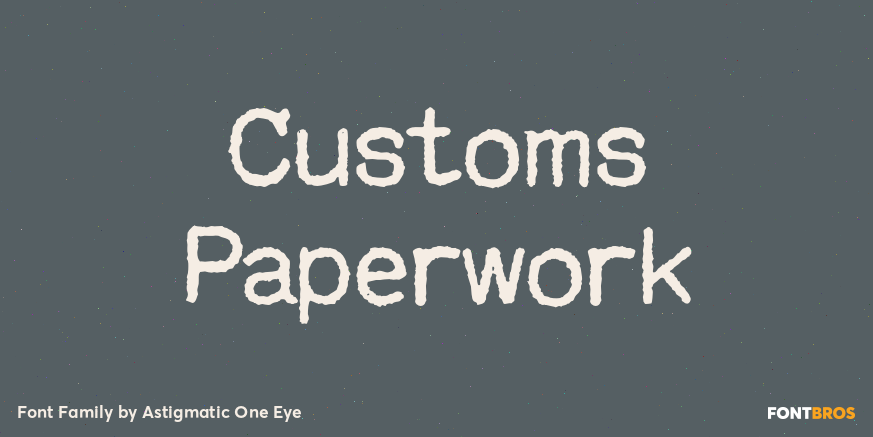
HomeFont BrosDistressedCustoms Paperwork DistressedSans Serif Customs Paperwork FacebookXPinterestWhatsApp 1 of 1 About Customs Paperwork A typeface made from vintage typewriter samples and meticulously compiled into a complete character set.  DOWNLOAD ON FONT BROSThis font is sold and delivered by Font Bros. Font Canyon may earn a commission if you buy through this link. People also explored Meows Nepil Font Reftograph Font Gettelay Font Maroon Marble Bella Canvas 3005 Mockup Bali Sunrise Font Yuba BTN Ramelisan Hipotesis Font Buterfly Font 232 0 TagsCustoms Paperwork Font Previous articleEB FuturetroNext articleMuseo Sans Condensed LEAVE A REPLY Cancel reply Comment: Please enter your comment! Name:* Please enter your name here Email:* You have entered an incorrect email address! Please enter your email address here Website: Save my name, email, and website in this browser for the next time I comment. Personal Use Free Lion Teen Personal Use Free Read more about this font Mahisya Personal Use Free Read more about this font Unispace Personal Use Free Read more about this font Calling Personal Use Free Read more about this font BLOG 5 Fonts That Will Dominate Design Trends in 2026 5 Fonts for 2026 That Will Dominate Design Trends Typography plays a critical role in visual communication, and as we look ahead to 2026, it’s... Free Fonts Risk: Why Free Fonts Can Be Dangerous for Designers Best Fonts for YouTube Videos: Make Your Thumbnails Stand Out How to Cut Any Font on Cricut: Convert a Font to SVG (Free)